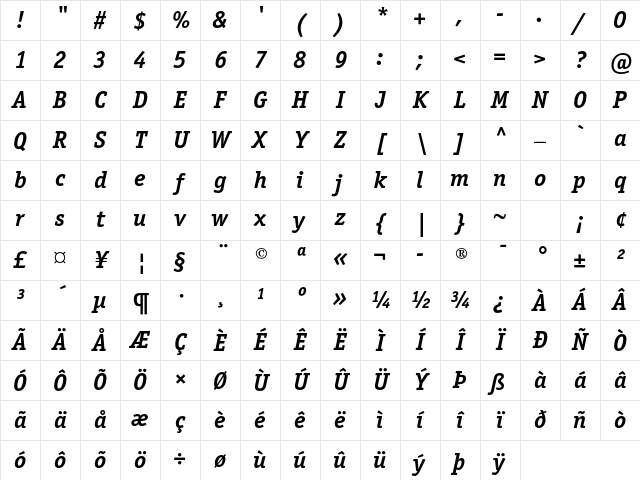
ITC Officina Serif Std Bold Italic
Designer: Erik Spiekermann
Design Context for ITC Officina Serif Std
ITC Officina Serif Std carries the refined structure of traditional serif typography, with bracketed terminals and considered proportions that communicate credibility and craft. The slanted form adds forward momentum and visual energy. Its bold stroke weight gives it real presence on the page.